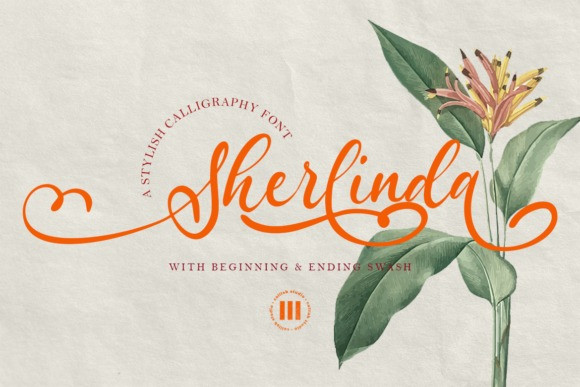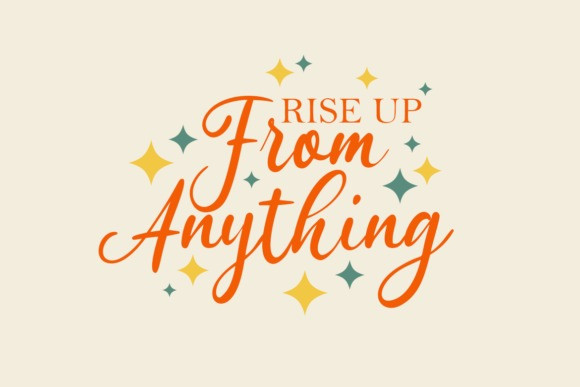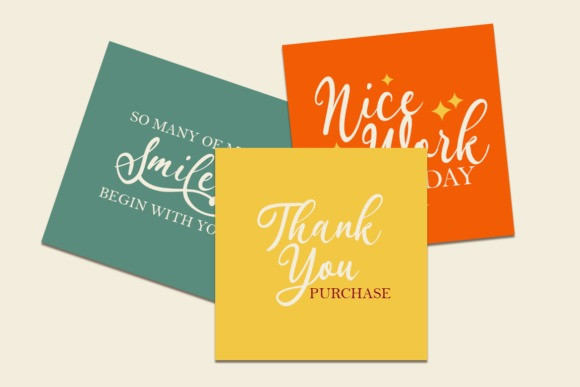
Sherlinda Font
Sherlinda is a magical script font carefully created with a touch of elegance. This font is PUA encoded which means you can access all of the glyphs and swashes with ease!